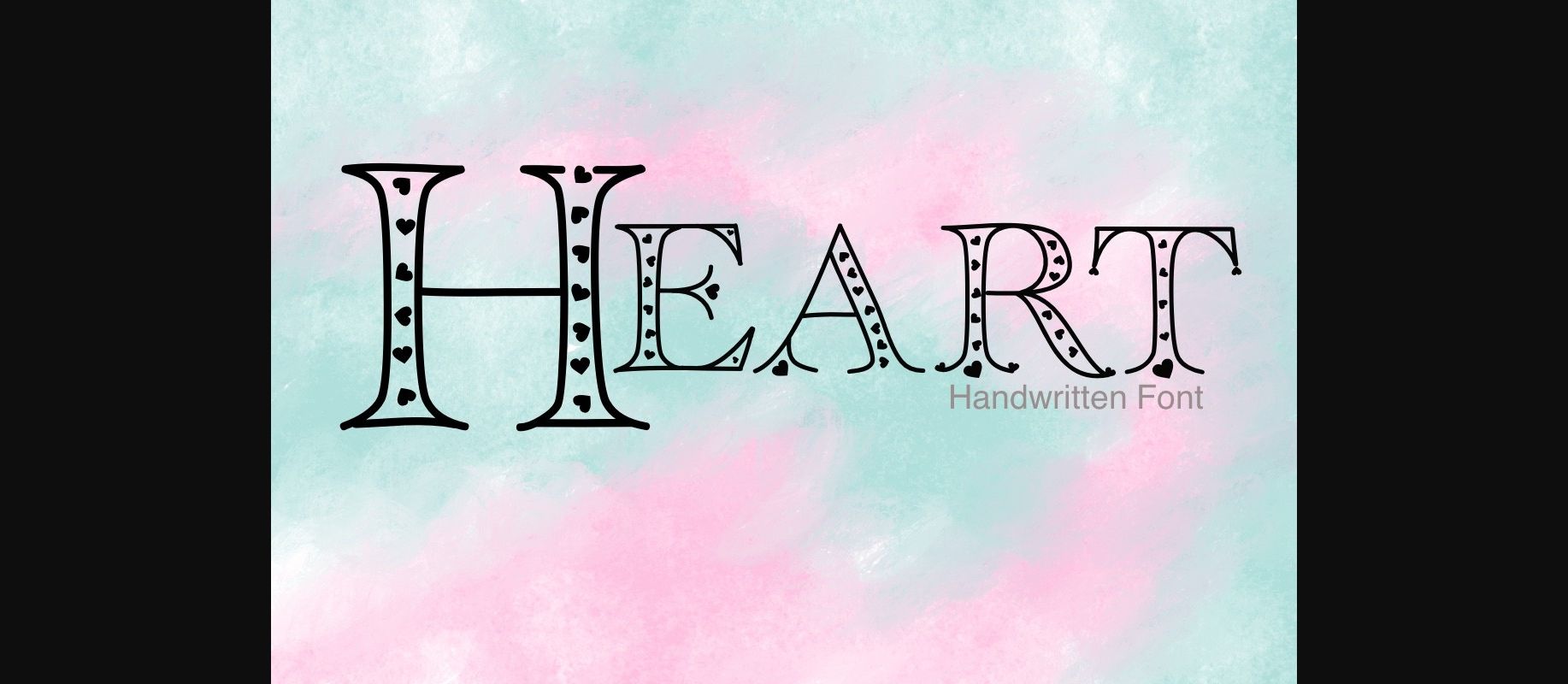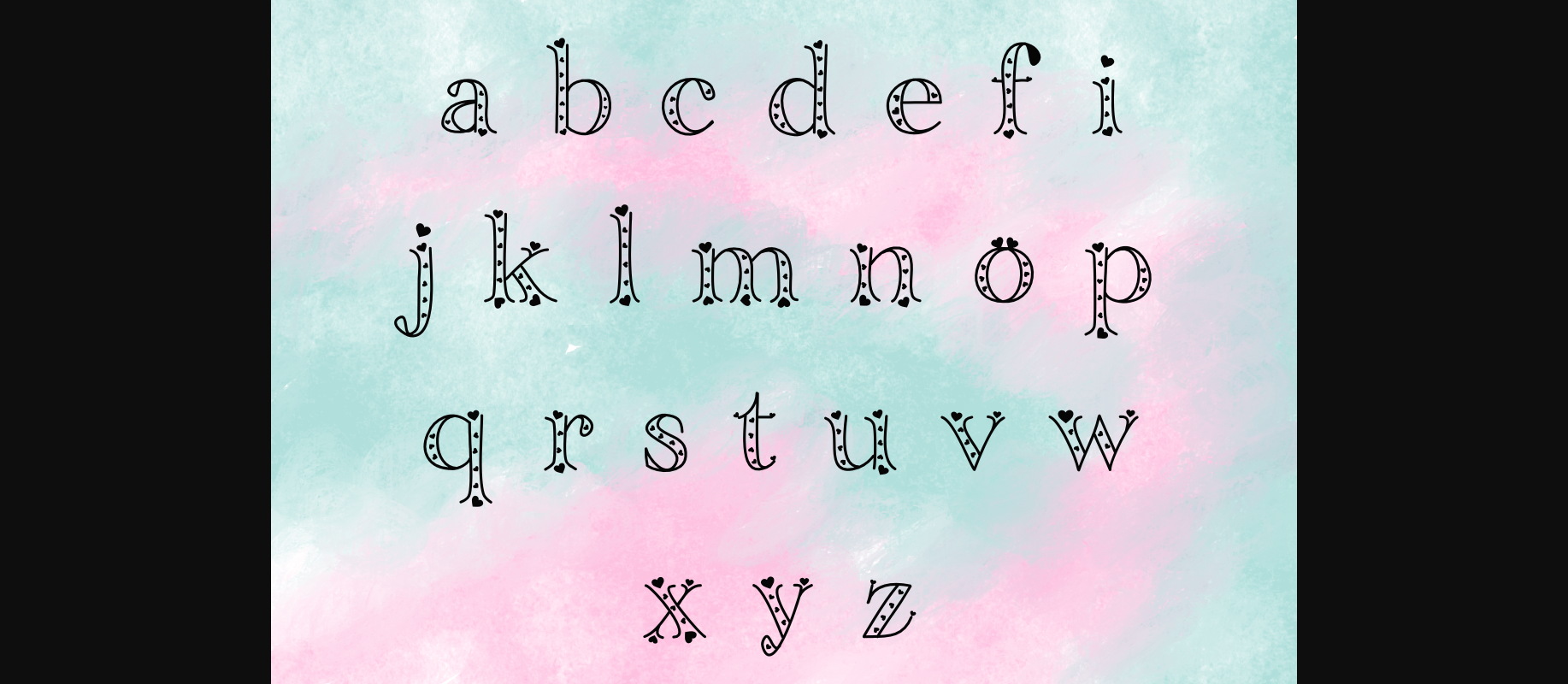
About Heart Font
Heart is a decorative handwritten font. Perfectly suitable for logos, branding, wedding invitations, business cards, greeting cards, posters, magazines, social media, planner prints, and websites. It is especially useful for children’s designs, t-shirts, mugs, posters, and more. Add this font to your favorite creative ideas and notice how it makes them come alive.